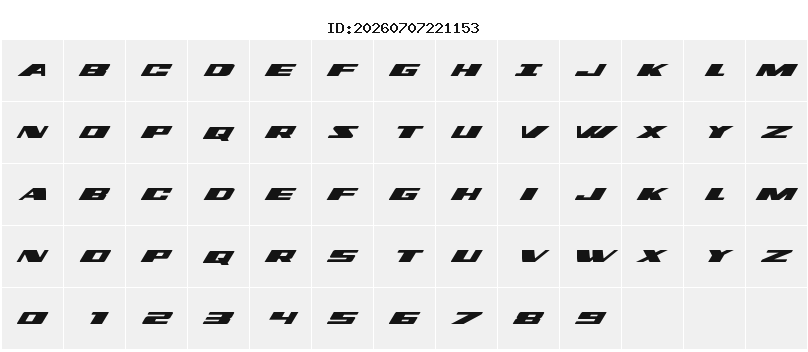
About Dassault Expanded Italic.ttf
Dassault Expanded Italic.ttf is a modern, elegant sans-serif font designed for ultimate readability and visual harmony. Perfect for branding, headlines, web design, and print materials.